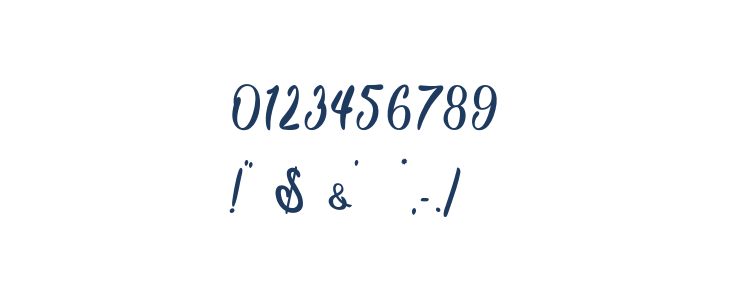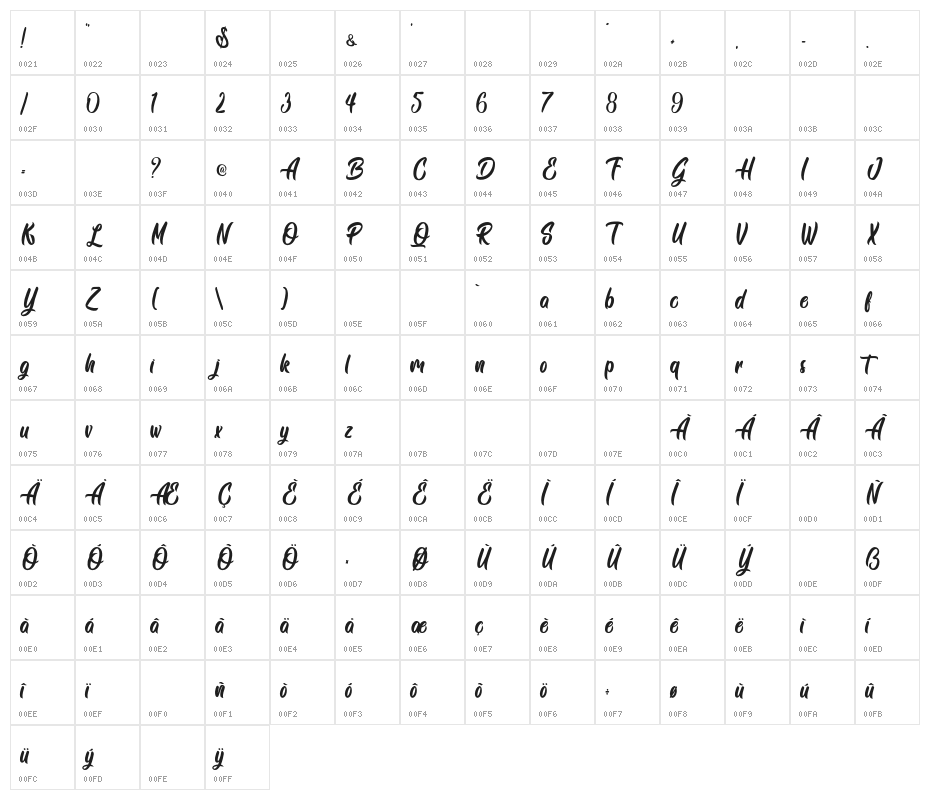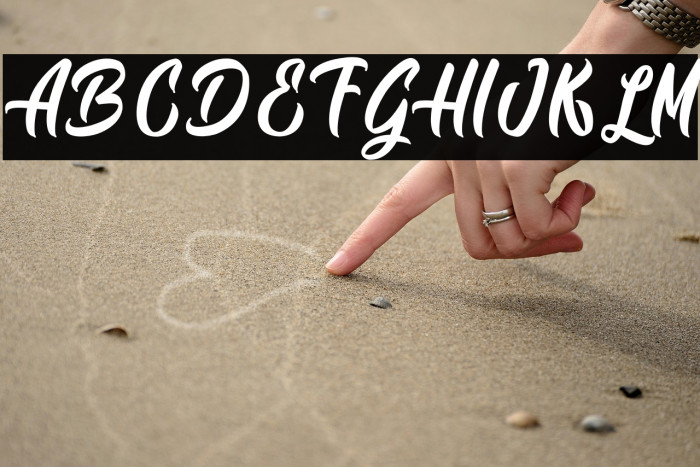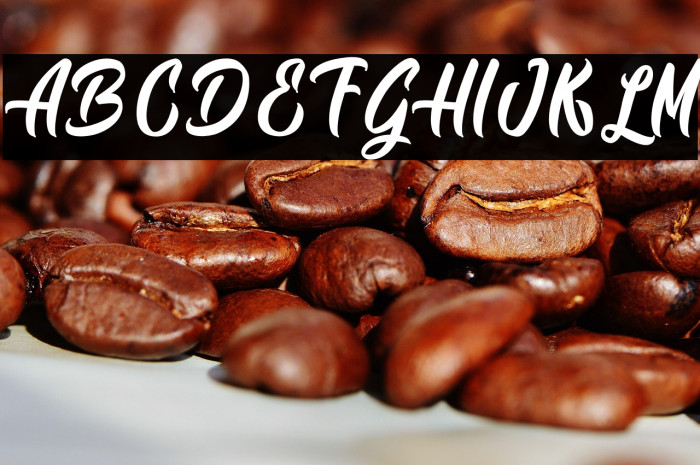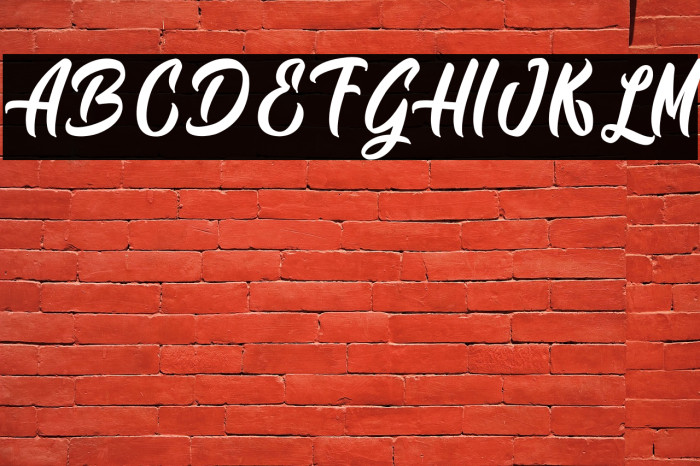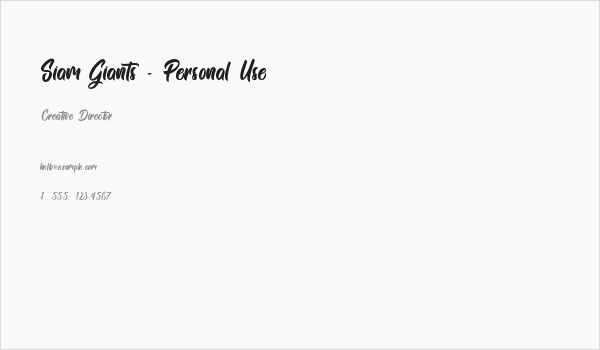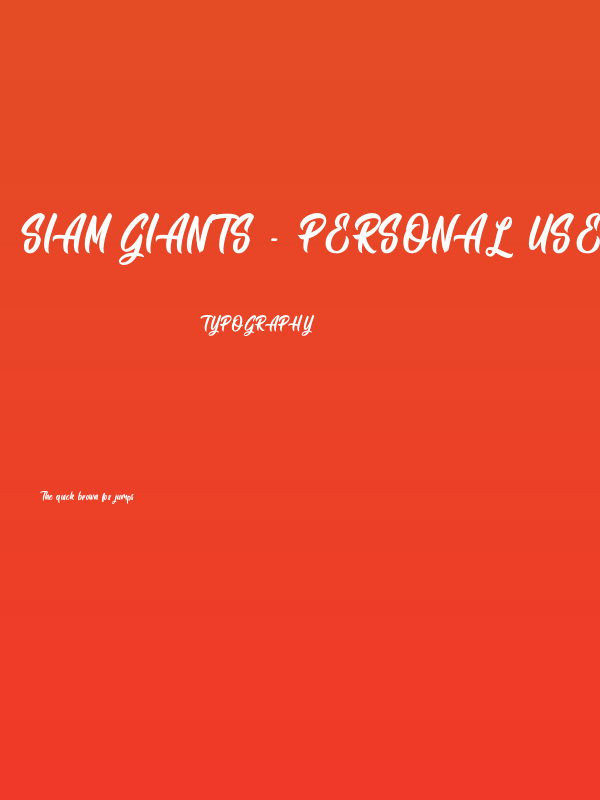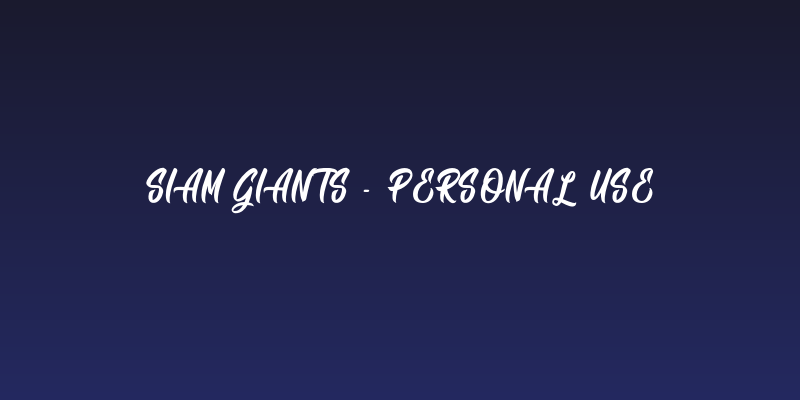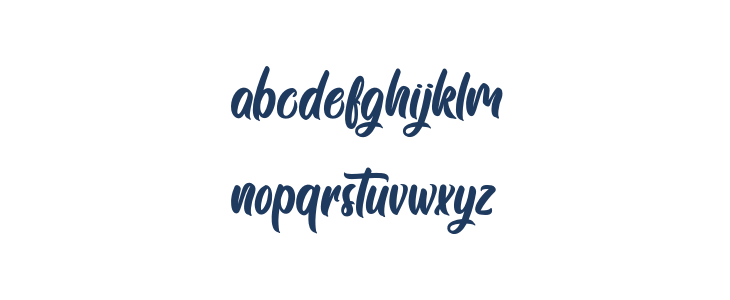
Siam Giants - Personal Use Font
Siam Giants - Personal Use Description
This font features a bold and dynamic script style with a strong presence. The characters are fluid and connected, giving a sense of movement and elegance. The uppercase letters are particularly striking, with sweeping curves and a slightly italicized slant that adds to the overall flow. The lowercase letters maintain the same fluidity, with some characters featuring unique loops and flourishes. The numerals are consistent with the script style, offering a cohesive look across all characters. Special characters are included, matching the overall aesthetic with similar curves and strokes.